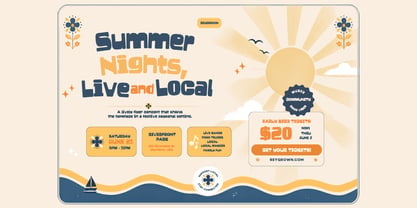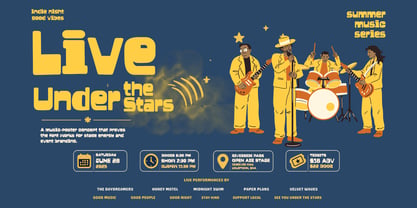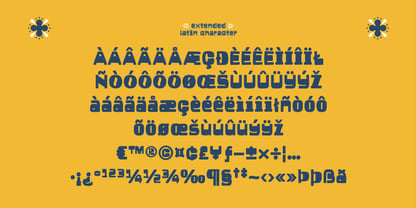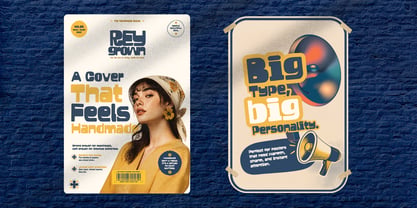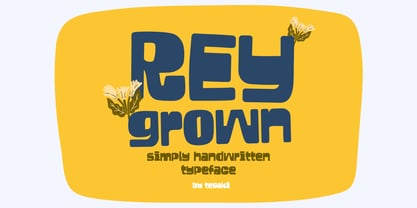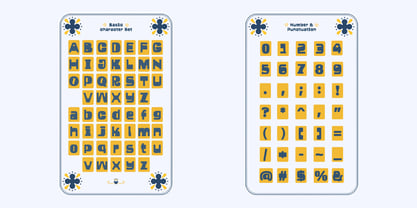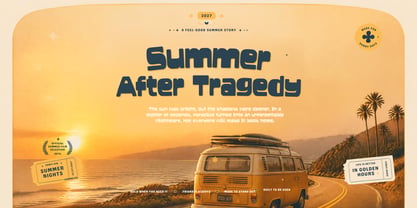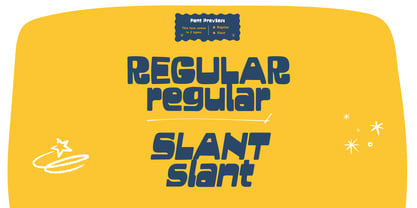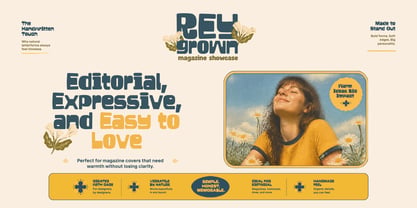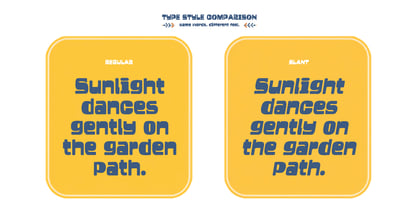
Reygrown
by Tegaki
The Reygrown Font Family was designed by Rudi Suhairi and published by Tegaki. Reygrown contains 2 styles and family package options. More about this family
Reygrown – Simply Handwritten Typeface
Reygrown is a playful, bold handwritten typeface with chunky forms, rounded edges, and a friendly retro character. Its unique letter shapes give it a fun, expressive personality while remaining highly readable and versatile.
Perfect for logos, branding, packaging, posters, apparel, social media, children’s designs, stickers, and creative display projects. A cheerful typeface for designs that need a warm, distinctive, and contemporary handmade feel.
Comes in 2 styles: Regular and Slant, giving you both solid strength and dynamic movement in one versatile family.
Designers: Rudi Suhairi
Foundry: Tegaki